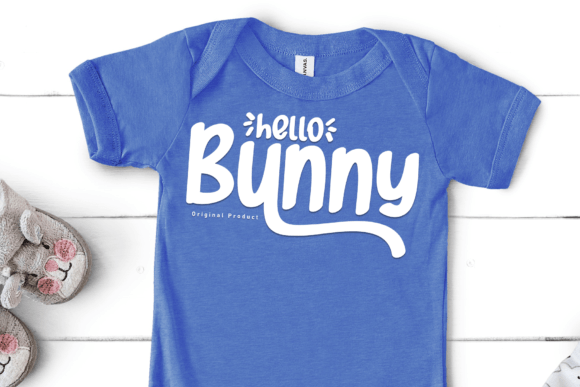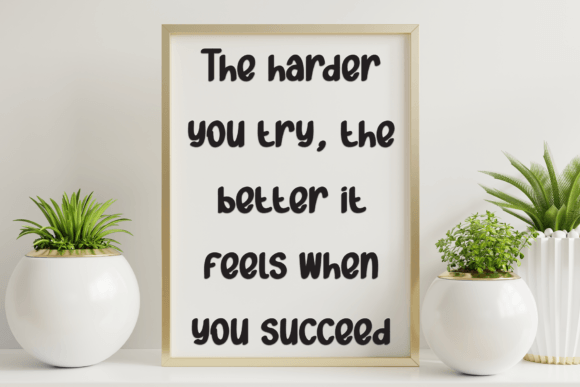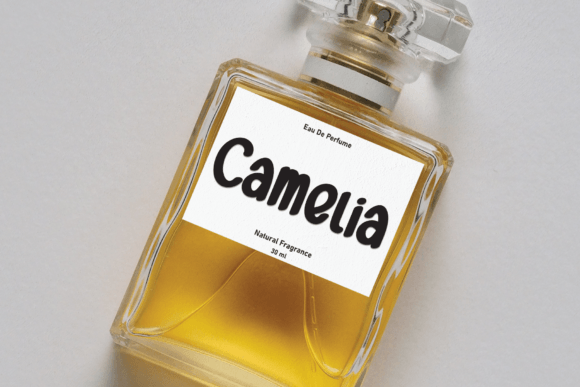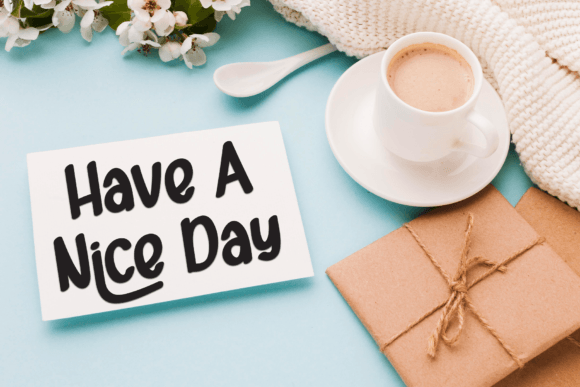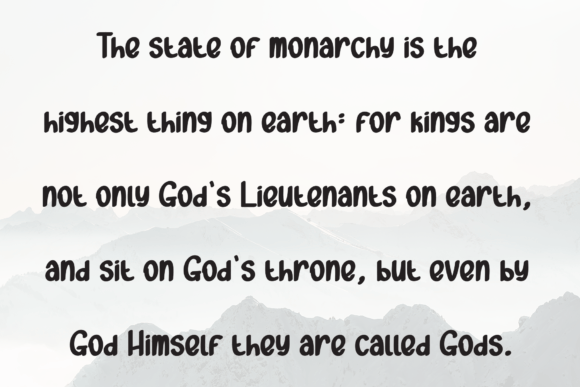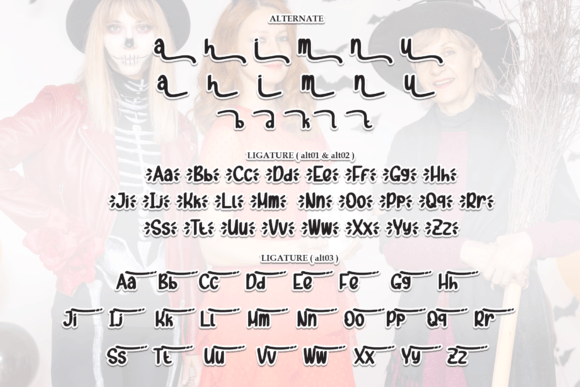
Introducing Costume Party Font: Add a Touch of Whimsy to Your Designs
Are you looking for a font that can add a dash of fun and playfulness to your designs? Look no further than Costume Party Font! This sweet and friendly handwritten display font is perfect for creating eye-catching wedding invitations, greeting cards, and other craft projects that require a touch of whimsy.
What Makes Costume Party Font So Special?
Costume Party Font is a one-of-a-kind typeface that boasts a unique, hand-written style that’s both cute and fun. Its friendly and approachable vibe makes it an ideal choice for designers and crafters who want to add a personal touch to their work. Whether you’re creating wedding invitations, birthday cards, or any other type of design, Costume Party Font is sure to bring a smile to the recipient’s face.
Wedding invitations and cards are a great way to showcase the Costume Party Font. The font’s playful and romantic style makes it perfect for couples who want to add a touch of whimsy to their special day. Imagine sending out wedding invitations that feature a beautiful, handwritten font that’s both elegant and fun. The Costume Party Font is sure to set the tone for a memorable and joyous celebration.
Ideal for Crafters and Designers
Costume Party Font is a versatile typeface that’s perfect for crafters and designers who want to add a personal touch to their work. Whether you’re creating handmade cards, scrapbooking pages, or other craft projects, this font is sure to inspire your creativity. The font’s playful style makes it easy to pair with other design elements, such as images, patterns, and textures, to create unique and eye-catching designs.
Key Features of Costume Party Font
- Handwritten style: Costume Party Font features a unique, handwritten style that’s both sweet and friendly.
- Cute and fun: This font is perfect for designs that require a touch of whimsy and playfulness.
- Display font: Costume Party Font is a display font that’s perfect for headlines, titles, and other design elements that require a bold and eye-catching style.
- Versatile: This font is perfect for a wide range of design projects, including wedding invitations, cards, craft projects, and more.
Tips for Using Costume Party Font
Here are some tips for using Costume Party Font in your designs:
- Pair with other design elements: Costume Party Font pairs well with other design elements, such as images, patterns, and textures.
- Use for headlines and titles: This font is perfect for headlines and titles that require a bold and eye-catching style.
- Experiment with colors: Costume Party Font looks great in a variety of colors, so don’t be afraid to experiment and find the perfect hue for your design.
Costume Party Font is a unique and versatile typeface that’s perfect for designers and crafters who want to add a touch of whimsy to their work. With its sweet and friendly handwritten style, this font is ideal for wedding invitations, cards, craft projects, and other design elements that require a playful and eye-catching style. So why not give Costume Party Font a try and see how it can add a touch of magic to your designs?